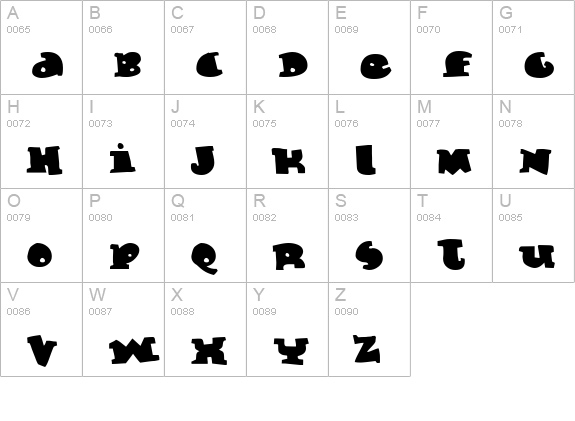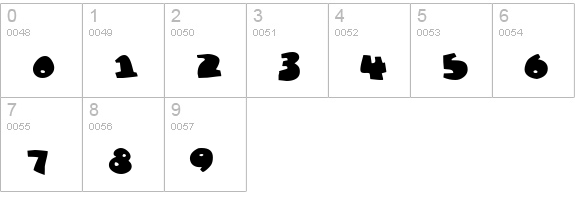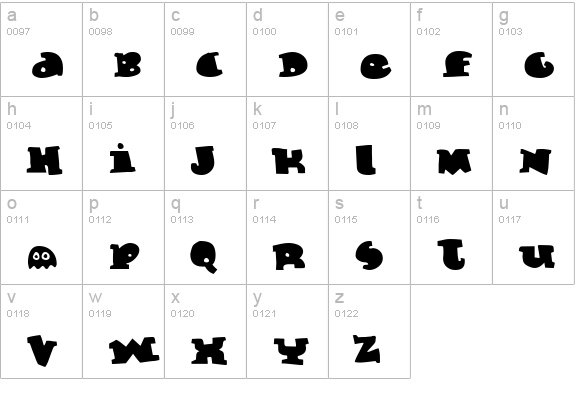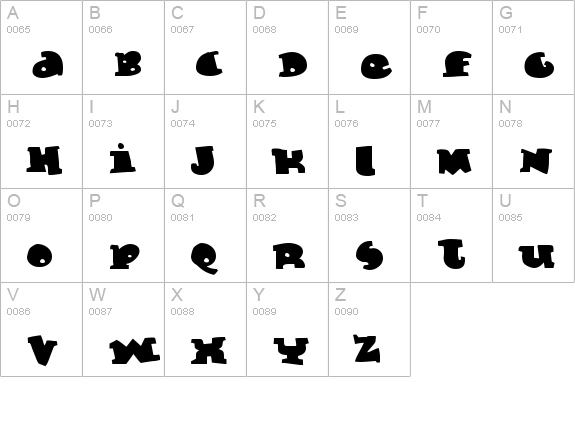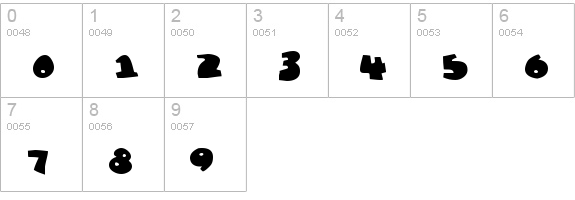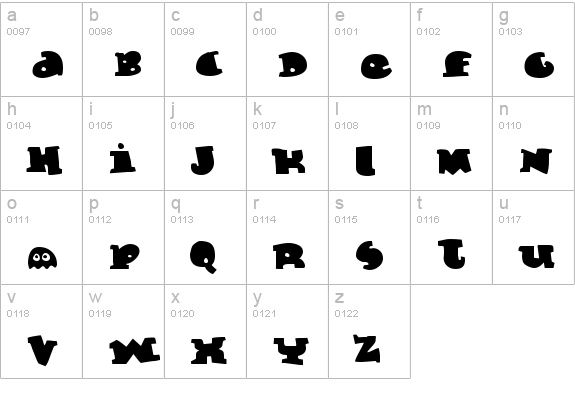
Marmelade Guys Font Details
Introducing Marmelade Guys, a captivating and whimsical font that is sure to add a touch of playfulness to any design project. With its charming handwritten style, Marmelade Guys brings a unique and joyful vibe to your creations. This font features a delightful combination of smooth curves and bold strokes, creating a visually pleasing contrast that catches the eye. Each letter is carefully crafted with intricate details, giving Marmelade Guys a distinct personality that is both inviting and cheerful. The versatility of Marmelade Guys makes it a perfect choice for a wide range of projects. Whether you are designing a logo, creating eye-catching headlines, or crafting a playful invitation, this font has you covered. Its legibility ensures that your message is delivered with clarity, while its playful nature adds a dash of fun to any design. What's even better is that Marmelade Guys is freely available to download at FontsMarket.com. You can easily access this font and bring your creative visions to life without any hassle. The freedom to use this font in personal or commercial projects gives you the flexibility to explore endless possibilities. So why wait? Download Marmelade Guys today and let your creativity soar. Whether you are a professional designer or an enthusiast looking to add a touch of whimsy to your creations, this font is the perfect choice. Get ready to embark on a journey of imagination and bring your designs to life with the captivating charm of Marmelade Guys.